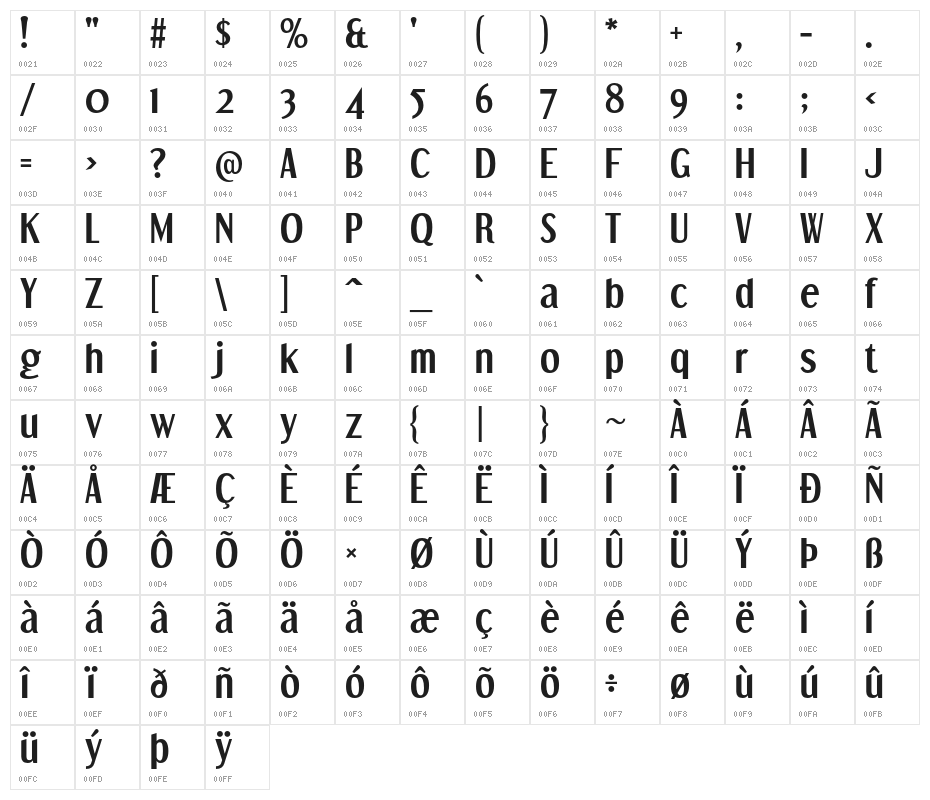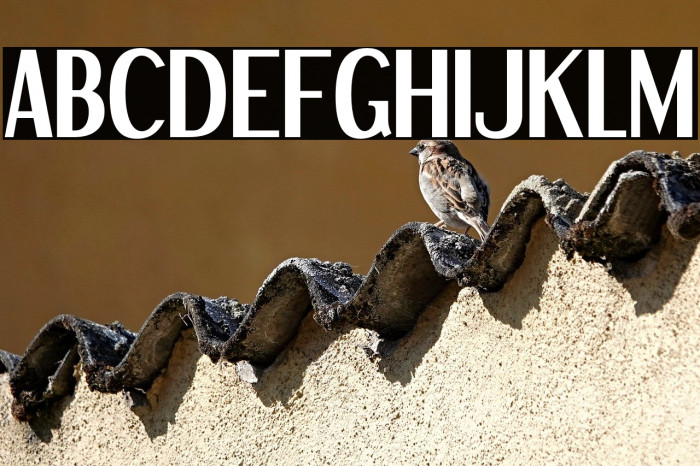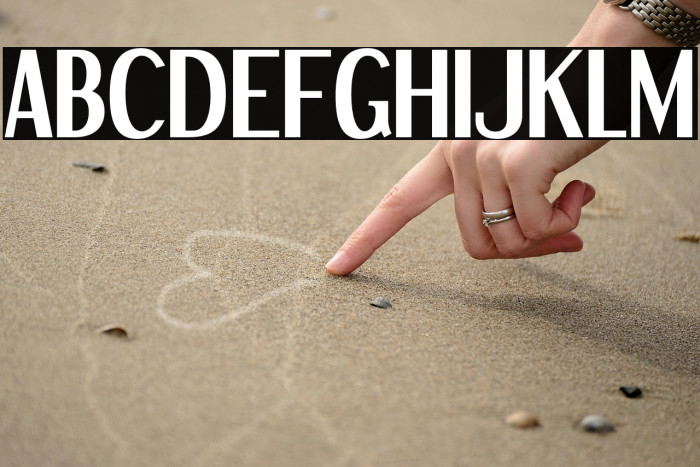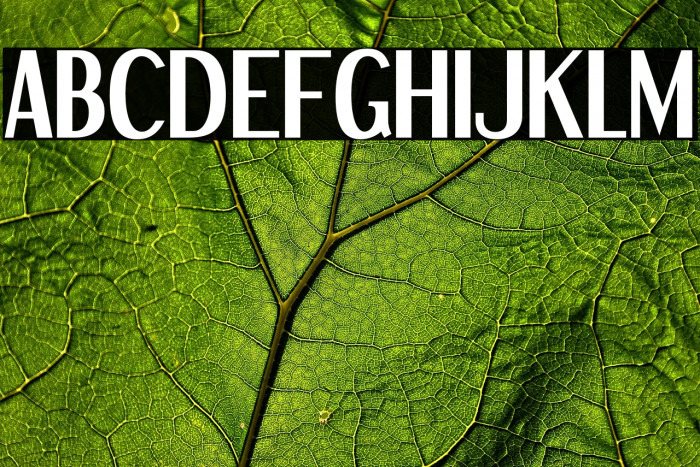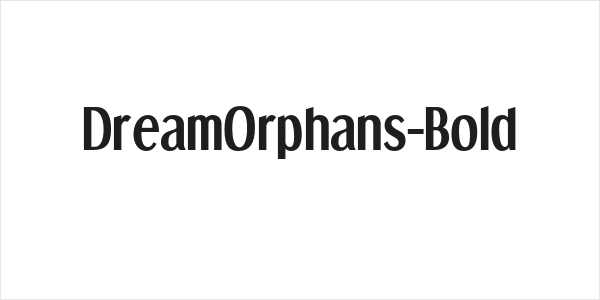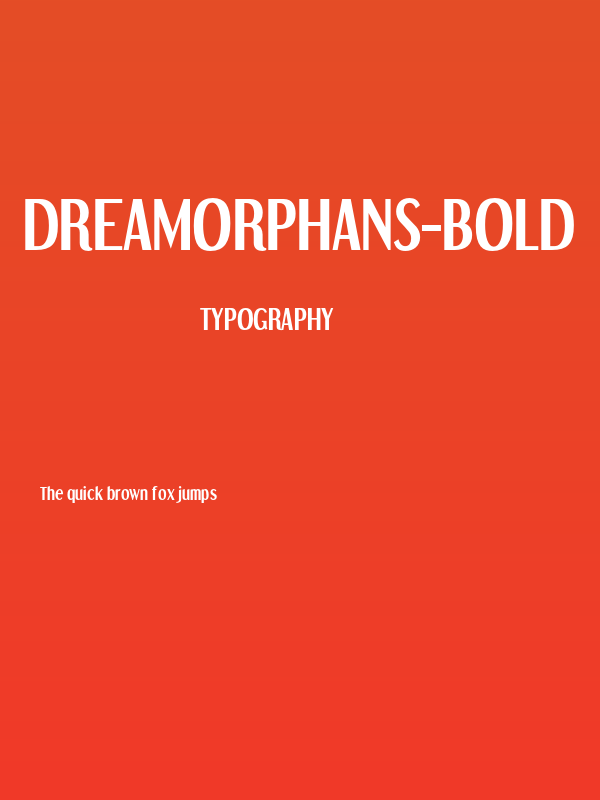
DreamOrphans-Bold Font
DreamOrphans-Bold Description
This font features a bold and striking design with clean, sharp edges and a modern aesthetic. The uppercase letters are tall and commanding, while the lowercase letters maintain a consistent and harmonious flow. The numerals are well-proportioned, ensuring readability and balance. Special characters are distinct and integrate seamlessly with the overall style. The font's bold weight and high contrast make it ideal for attention-grabbing headlines and impactful designs.
| Proposed Projects | This font is suitable for branding, advertising, poster design, and any project requiring a strong visual impact. |